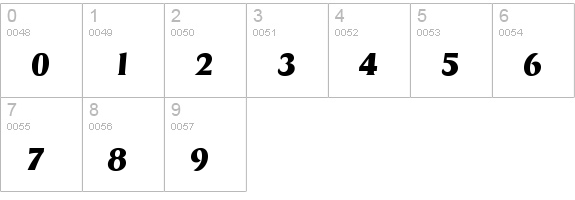
Dragon-ExtraBoldIta Font Details
Introducing Dragon-ExtraBoldIta font, a bold and dynamic typeface designed to make a statement. With its extra bold weight and stylish italicized design, this font exudes power and confidence. Perfect for headlines, logos, posters, and any project that demands attention. The Dragon-ExtraBoldIta font is not only visually striking but also incredibly versatile, making it a valuable addition to any designer's toolkit. Its sleek and modern look adds a touch of sophistication to any design project. Whether you're working on a branding project or creating eye-catching graphics for social media, this font is sure to make an impact. Best of all, the Dragon-ExtraBoldIta font is free to download at FontsMarket.com. That's right, you can get your hands on this stunning typeface without spending a dime. Don't miss out on the opportunity to enhance your designs with this bold and stylish font. Download Dragon-ExtraBoldIta today and take your creations to the next level!